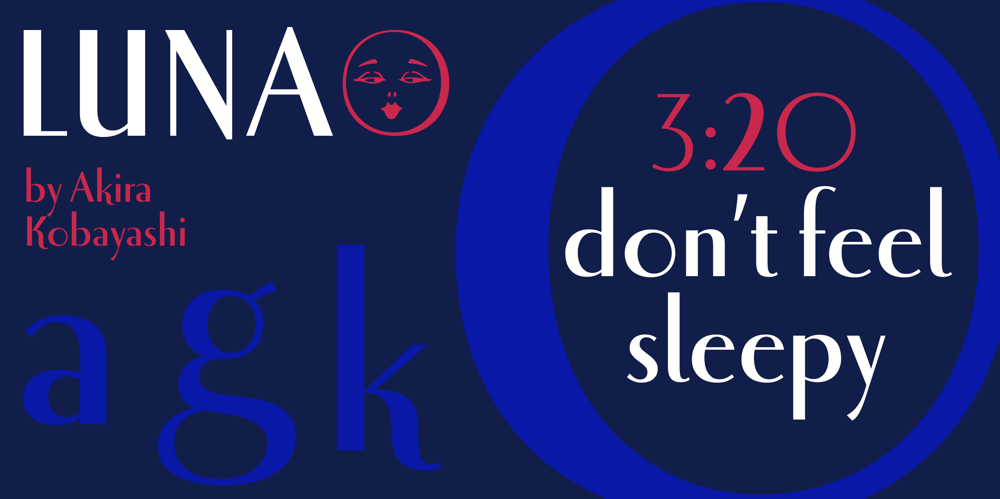
ITC Luna Font Family was designed by Akira Kobayashi and published by ITC. ITC Luna contains 2 styles and family package options. ITC Luna is the work of Japanese designer Akira Kobayashi. He turned to the designs of the 1930s for his inspiration for both ITC Luna and ITC Silvermoon. Luna is designed to fill the gap between a pure Art Deco display face and an ordinary text face,” says Kobayashi. “It has an Art Deco style but is still fairly easy to read. It can be used in short passages of text. As for individual characters, I especially liked the distinctive O, shaded only on one side. Lowercase a and g are also unusual, but they are somehow legible enough in text matter.” And for a finishing touch on his Luna, Kobayashi added the charming moon face as an extra character.